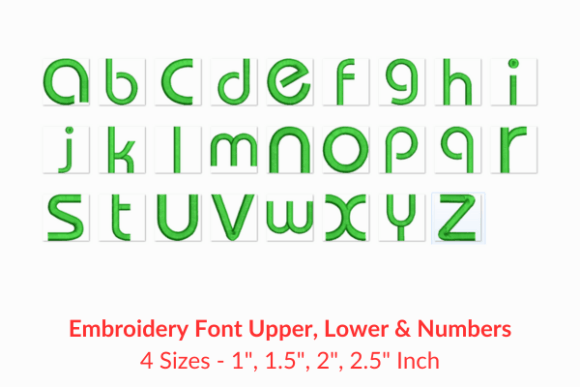
Bauhaus Font: Elevating Embroidery with a Timeless Design Language
In the ever-evolving world of creative design and personalization, the right font can make all the difference. Bauhaus Font is more than just a typographic style—it's a bridge between artistic heritage and modern customization needs. This high-quality embroidery font has gained significant attention among professionals, creators, and enthusiasts who are looking to add a unique touch to their fabric-based projects.
The Bauhaus Influence on Contemporary Design
Originating from the Bauhaus movement of the early 20th century, this font draws inspiration from the school’s emphasis on simplicity, functionality, and aesthetic purity. The Bauhaus design philosophy rejected ornamentation in favor of clean lines and geometric forms, which have since become foundational elements in modern graphic design, architecture, and even digital interfaces.
Bauhaus Font encapsulates these principles, offering a versatile typeface that blends retro charm with contemporary relevance. Its minimalist structure and strong visual identity make it ideal for applications where clarity and impact are equally important. Whether used in branding, signage, or personal projects, Bauhaus Font stands out as a timeless choice that resonates with both designers and end-users.
Why Bauhaus Font Matters in Today’s Market
As the demand for personalized and custom-designed products continues to rise, embroidery has emerged as a powerful medium for expression. From custom apparel to home décor and promotional items, the ability to add unique text to fabric is becoming increasingly valuable. Bauhaus Font fits seamlessly into this trend by providing a visually striking option that aligns with current design sensibilities.
Consumers today are not just looking for products—they're seeking experiences. Personalized items, whether for gifts, events, or self-expression, carry emotional value and tell a story. Bauhaus Font enables creators to craft meaningful messages that resonate with their audience. Whether it's a name, a date, or a motivational quote, the font adds a layer of sophistication and character that elevates the final product.
Practical Applications of Bauhaus Font
Bauhaus Font is not limited to one use case—it’s adaptable across a wide range of creative fields. Here are some practical examples of how this font can be applied:
Each of these applications highlights how Bauhaus Font meets the growing need for visually appealing, customizable solutions that cater to both functional and aesthetic demands.
Technical Versatility and Compatibility
Moreover, the font is designed with precision in mind. Each character is crafted to maintain legibility and balance when stitched onto fabric. This attention to detail ensures that the final result is not only visually appealing but also durable and suitable for long-term use.
How Bauhaus Font Fits Into Broader Trends
The rise of Bauhaus Font reflects broader shifts in the creative and consumer markets. As people become more conscious of the stories behind the products they buy, there is a growing preference for items that are both meaningful and well-crafted. Bauhaus Font supports this shift by enabling creators to produce personalized designs that resonate on a deeper level.
Additionally, the increasing integration of technology into traditional crafts has made tools like Bauhaus Font more accessible than ever. Digital embroidery software, online marketplaces, and social media platforms have created new opportunities for designers to showcase and sell their work. Bauhaus Font plays a crucial role in this ecosystem by offering a consistent, high-quality typographic solution that enhances the overall appeal of embroidered products.
Conclusion: Embracing Bauhaus Font for Creative Success
Bauhaus Font is more than just a design element—it’s a statement. It represents a fusion of historical influence and modern innovation, making it a valuable asset for anyone involved in creative design, personalization, or business branding. Whether you’re an entrepreneur looking to stand out in a competitive market or an enthusiast passionate about crafting unique pieces, Bauhaus Font offers the tools to bring your vision to life.